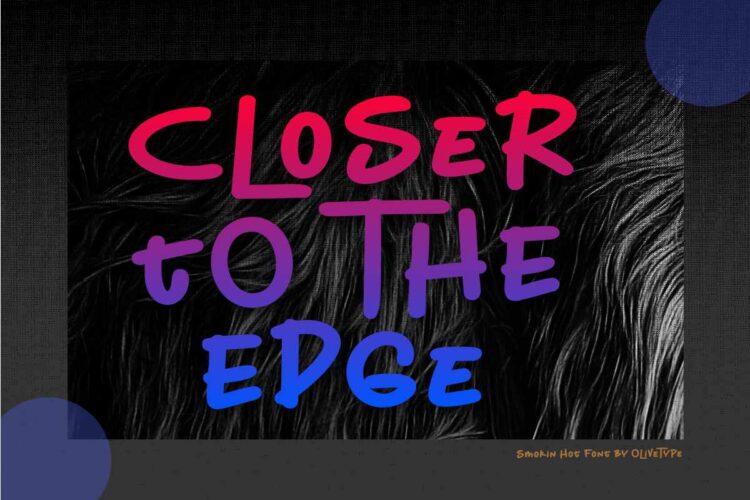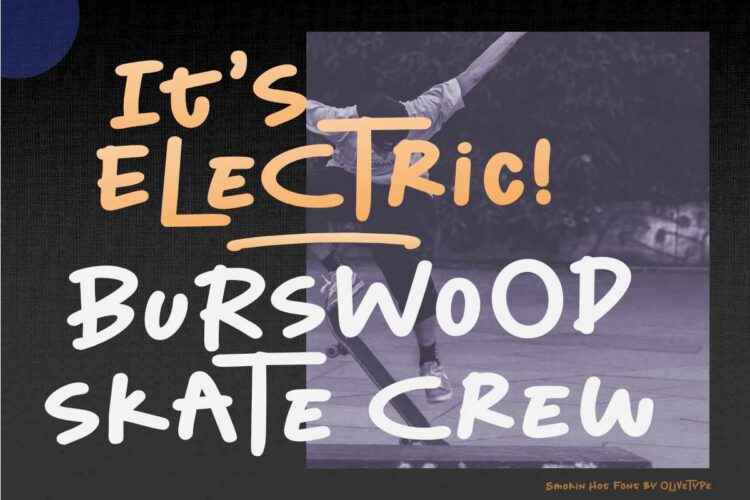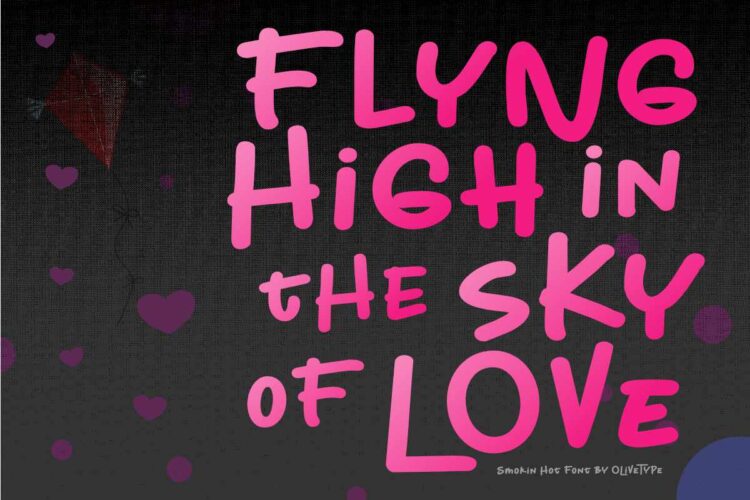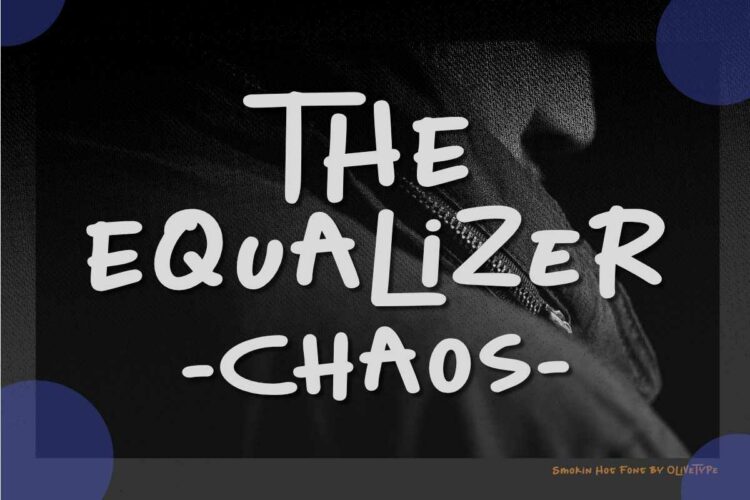
Make a statement that will set your design on fire with the “Smokin’ Hot” font! Get ready to turn up the heat and create designs that will make an unforgettable impact. With playful, vibrant characters that will turn any project up a notch, this font is sure to add some positive energy to any project. Whether you are creating posters, flyers, or other marketing materials, “Smokin’ Hot” is here to get your message noticed.